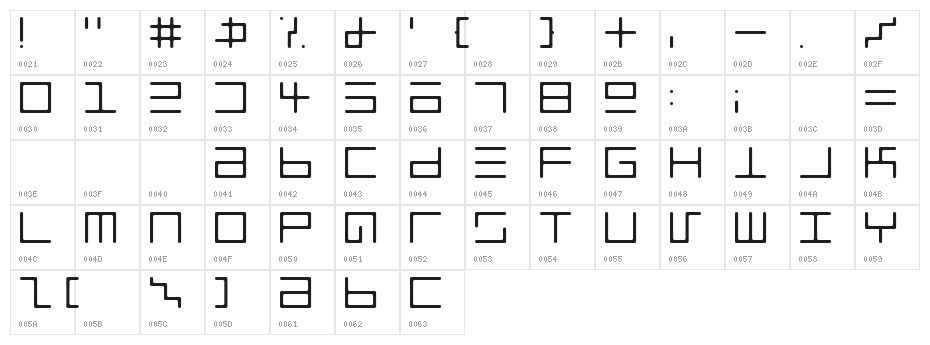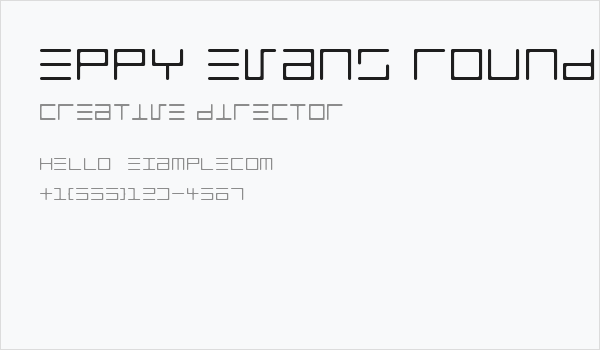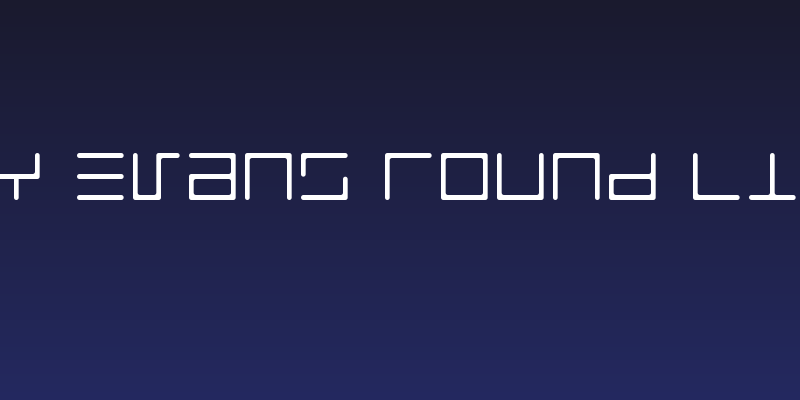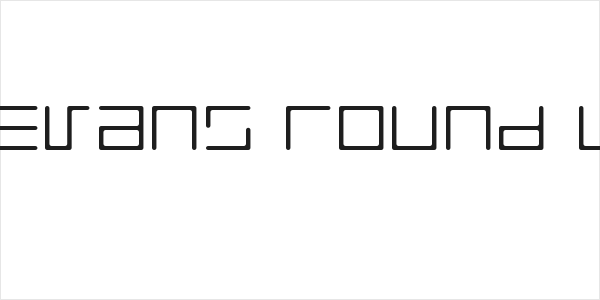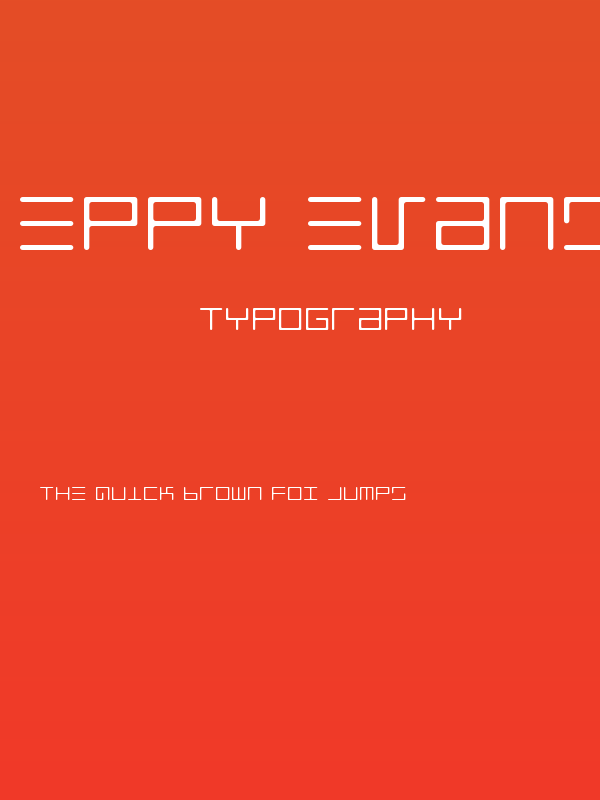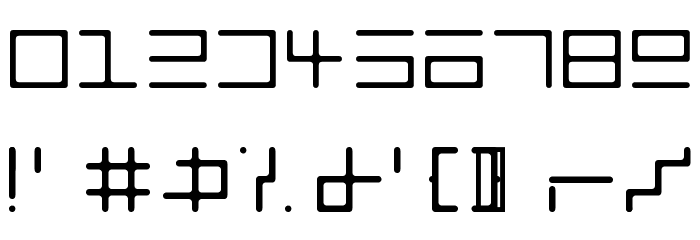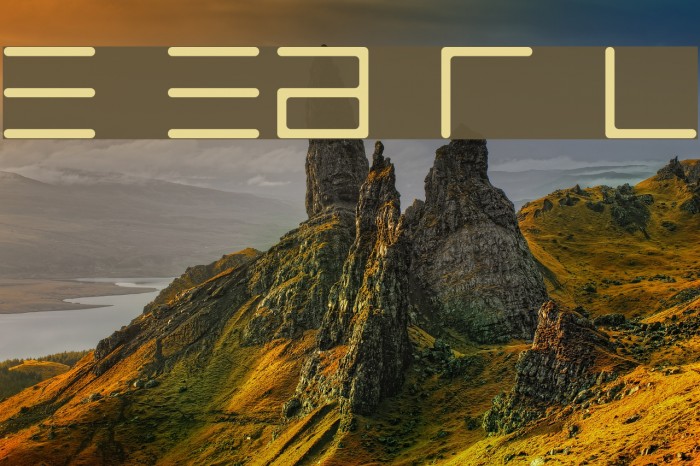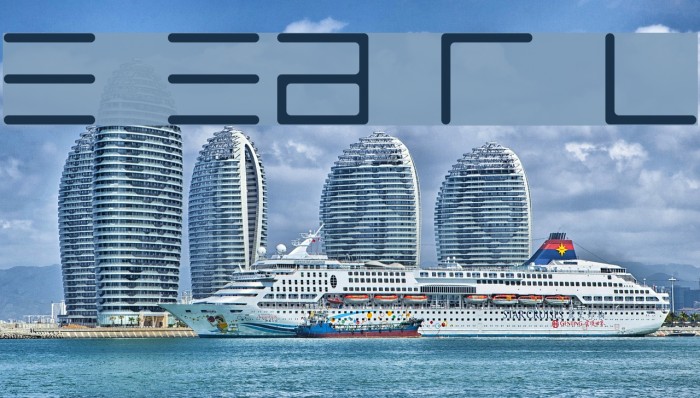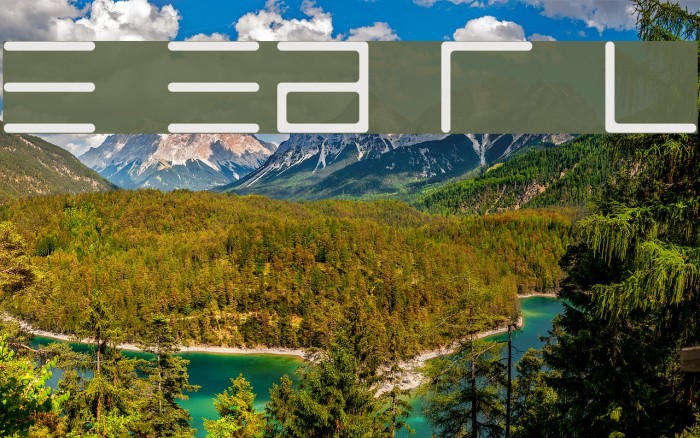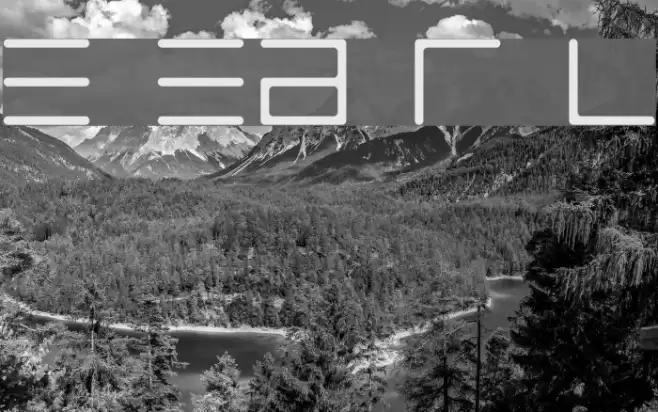
Eppy Evans Round Light Font
Eppy Evans Round Light Description
This font features a geometric and futuristic design with rounded edges and a consistent line weight throughout. The characters are constructed with a minimalist approach, emphasizing clean lines and a modern aesthetic. The uppercase and lowercase letters maintain a uniform height, contributing to a cohesive and structured appearance. Numbers and special characters follow the same design principles, ensuring a seamless integration across all glyphs. The font's style is both innovative and functional, making it suitable for a variety of digital and print applications.
| Use Case | Logos, Headlines, Digital interfaces |
| Proposed Projects | Ideal for tech branding, digital interfaces, modern posters, and innovative product packaging. |